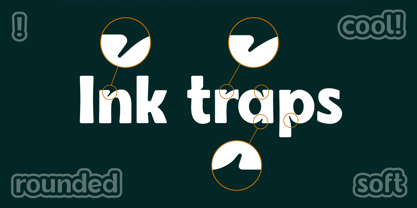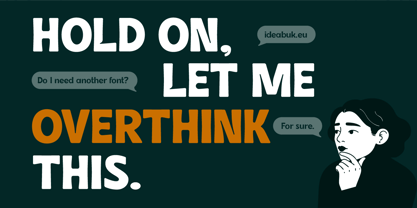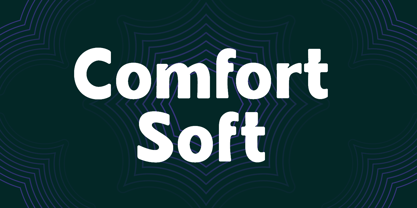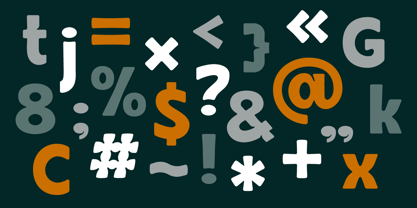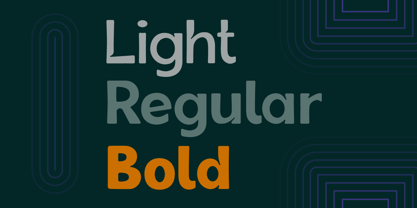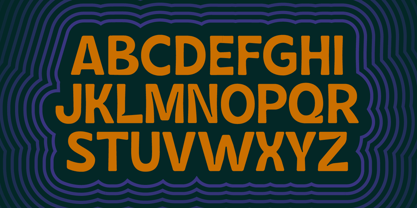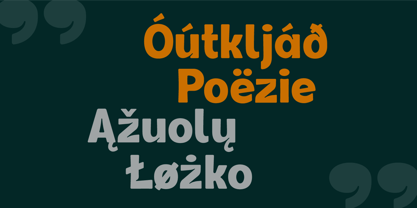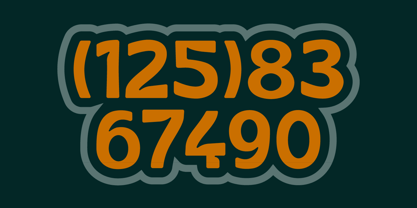
Comfort Soft
by Ideabuk
The Comfort Soft Font Family was designed by Agne Matulionyte and published by Ideabuk. Comfort Soft contains 3 styles and family package options.
Introducing Comfort Sans, a charming display font with retro-inspired design. This soft and rounded typeface with ink-traps, injecting a playful twist into its curvy forms. Comfort Sans evokes a sense of warmth and tranquility, making it ideal for creating inviting headlines, logos, and typographic compositions with a touch of vintage flair. Its unique aesthetic strikes a balance between retro appeal and modern versatility, allowing Comfort Sans to enhance a wide range of creative projects that call for a soothing, timeless, and welcoming vibe.